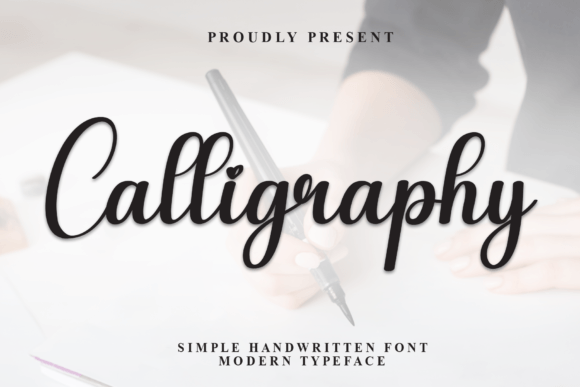
The Charm of Calligraphy Font: A Designer’s Best Friend
I’ll never forget the time I was working on a wedding invitation project, and my client asked for a font that would make the event feel “intimate and special.” I scoured the internet, tried out dozens of fonts, but nothing seemed quite right. That was until I stumbled upon Calligraphy Font. Its effortless, flowing strokes instantly captured the warm and friendly vibe my client was looking for. From that moment on, Calligraphy Font became a staple in my design toolkit.
- ✨ Natural, flowing strokes that give any design a relaxed and friendly feel
- ✅ Perfect for personal projects, social media, and invitations
- 🎉 Easy to pair with other fonts, thanks to its classic and timeless look
- 👍 Great for adding a touch of warmth and authenticity to any design
While Calligraphy Font is an amazing addition to any design project, there are a few things to keep in mind:
- ⚠️ It may not be the best choice for very formal or corporate designs, as it can come across as too casual
- 🤔 Some of the letters may be a bit tricky to read at smaller sizes, so be sure to test it out before finalizing your design
- Experiment with the font’s OpenType features, such as glyphs and stylistic alternates, to add some extra flair to your design
The Designer Inspiration Behind Calligraphy Font
Calligraphy Font was inspired by the art of traditional calligraphy, where the focus is on creating beautiful, flowing letters by hand. The font’s creator wanted to capture the essence of this art form and make it accessible to designers and crafters around the world. The result is a font that’s both elegant and effortless, perfect for adding a touch of warmth and authenticity to any design.
Q: What is Calligraphy Font?
A: Calligraphy Font is a casual handwritten font that captures a relaxed and friendly vibe with its natural, flowing strokes.
Q: What can I use Calligraphy Font for?
A: Calligraphy Font is perfect for personal projects, social media, invitations, and any design that needs a touch of warmth and authenticity.
Q: Is Calligraphy Font easy to read?
A: Yes, Calligraphy Font is generally easy to read, but some of the letters may be a bit tricky to read at smaller sizes.